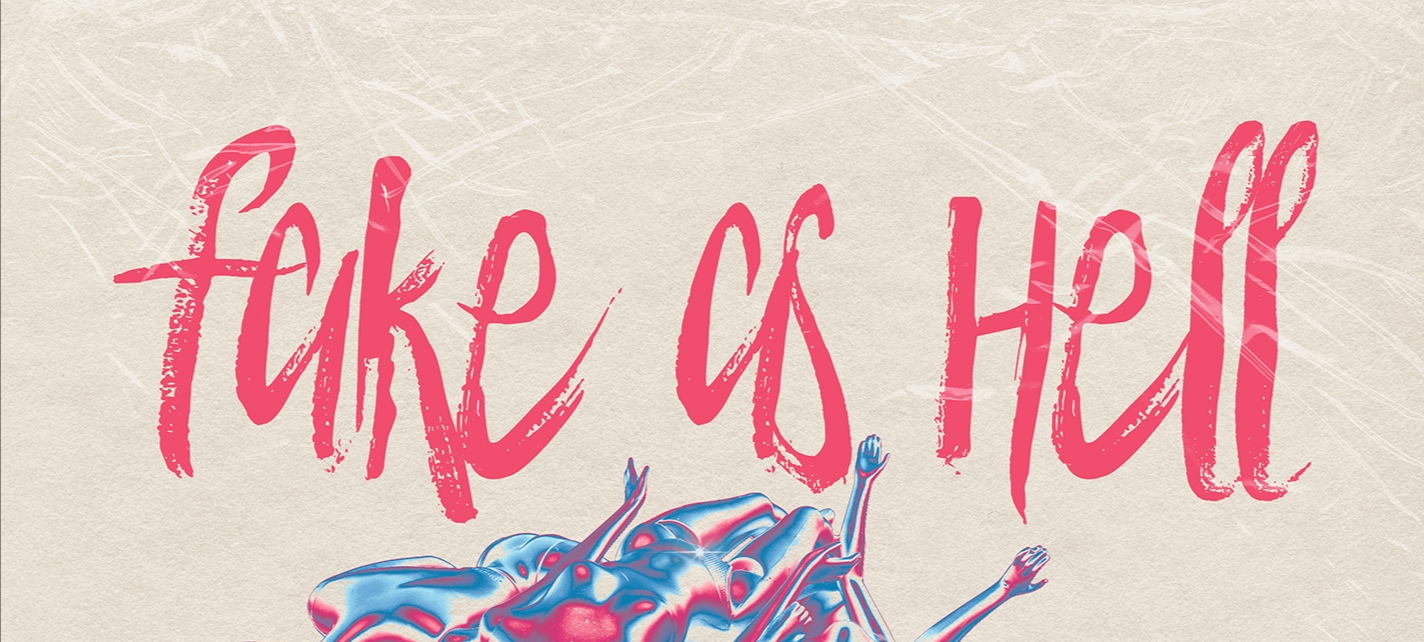
ID Brush Style font used by Avril Lavigne x All Time Low for Fake As Hell
Can someone help me identify the brush style font used for Avril Lavigne and All Time Low joint single Fake As Hell? Thanks in advance